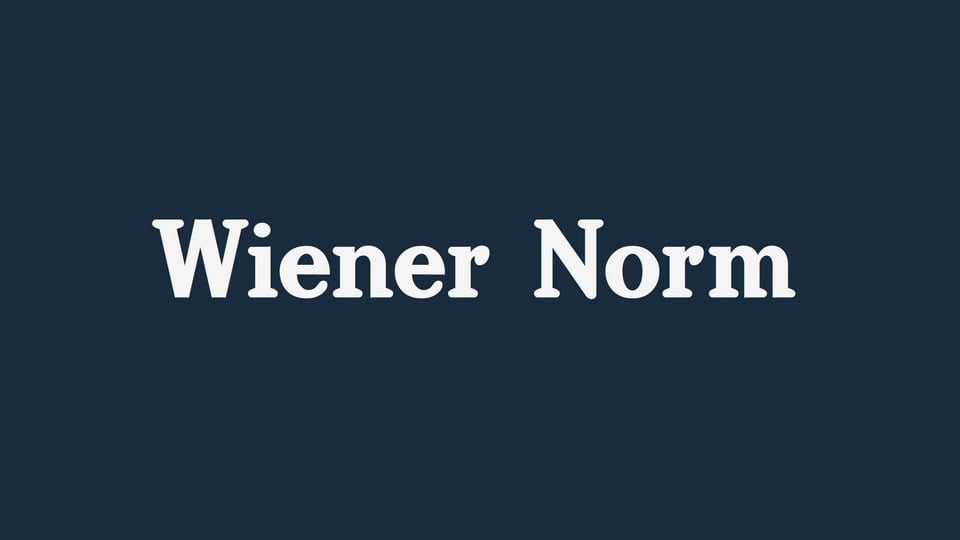
Download Wiener Norm font, a re-design of the classic typeface, adapted to the modern requirements of electronic typesetting, greatly expanded in character range. Wiener Norm is designed as a display font and is therefore best suited for large type sizes.
Designer: Rudolf Horaczek